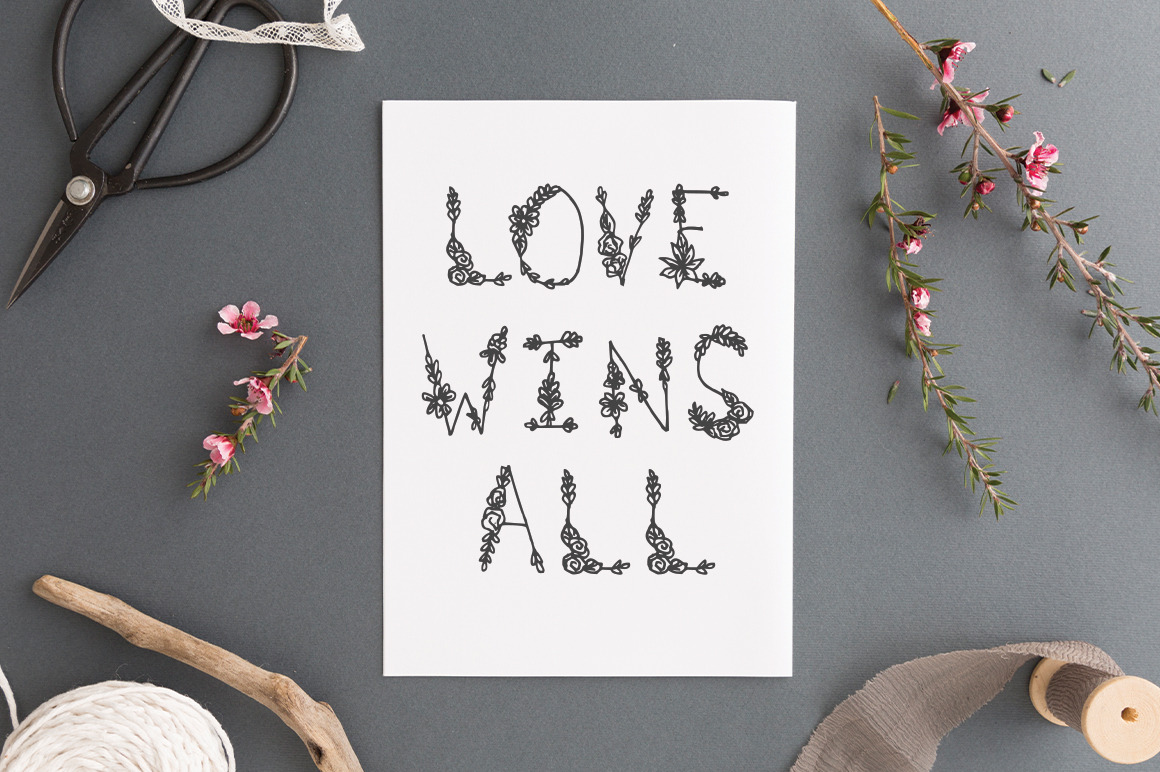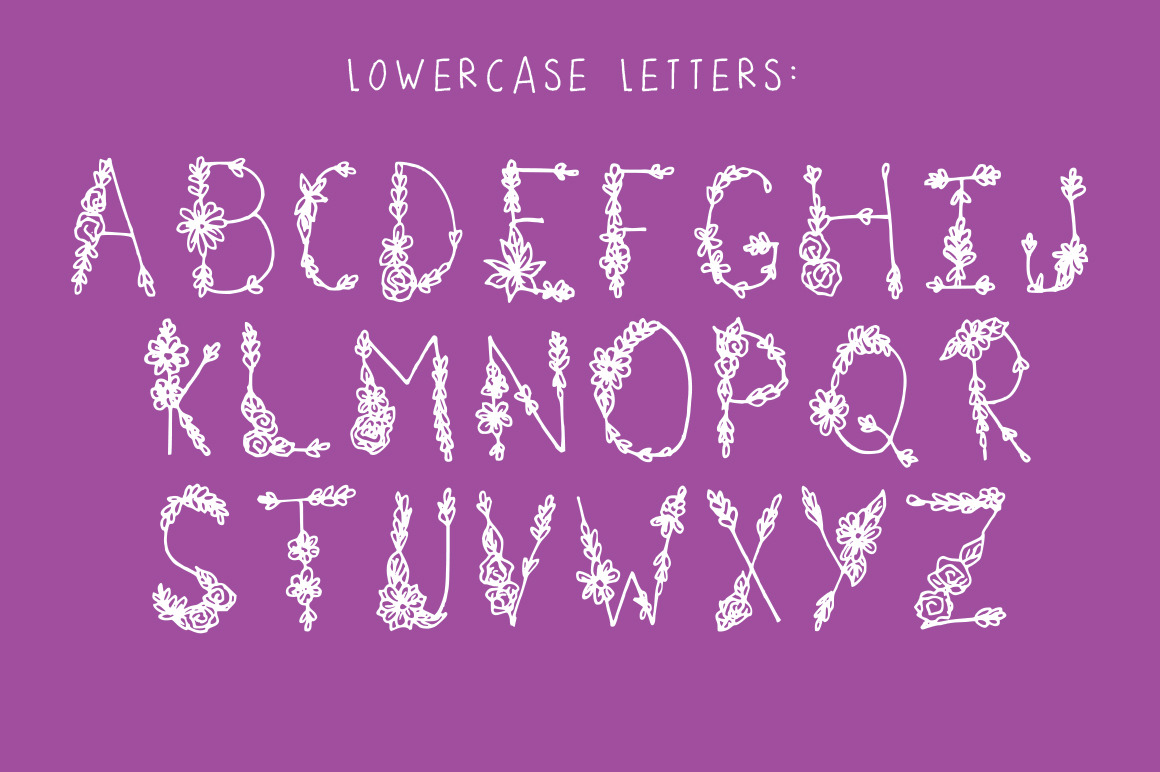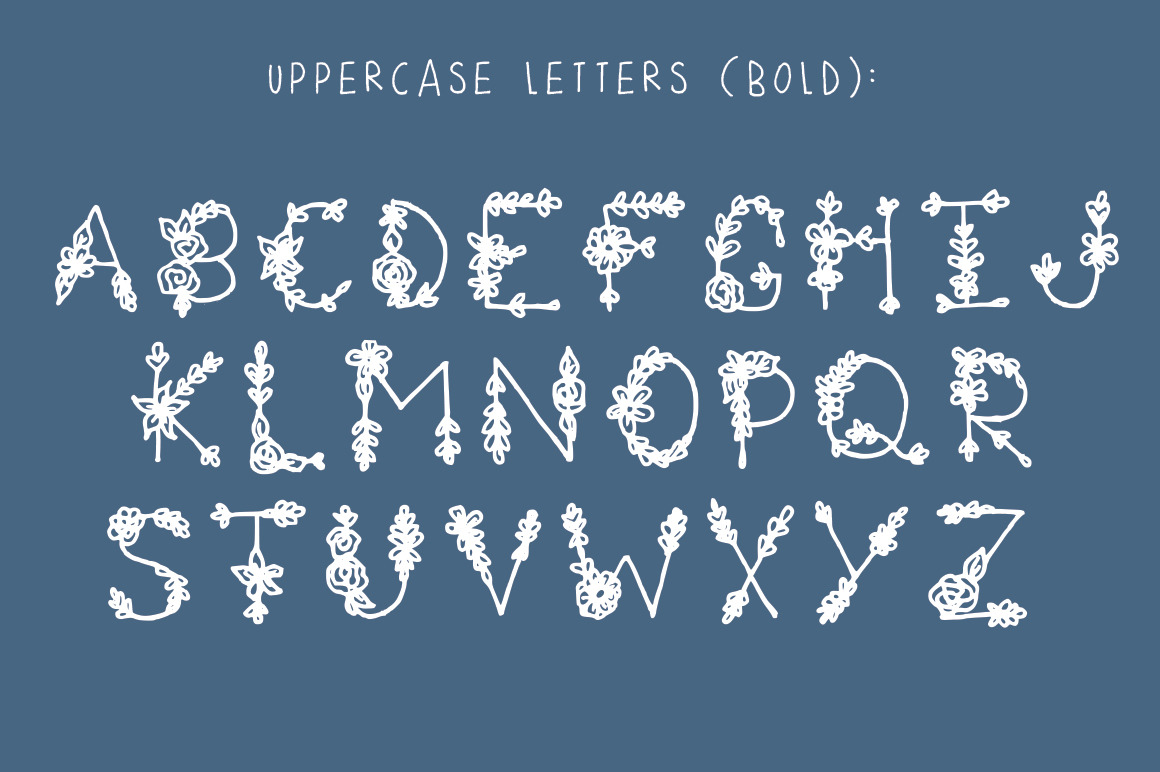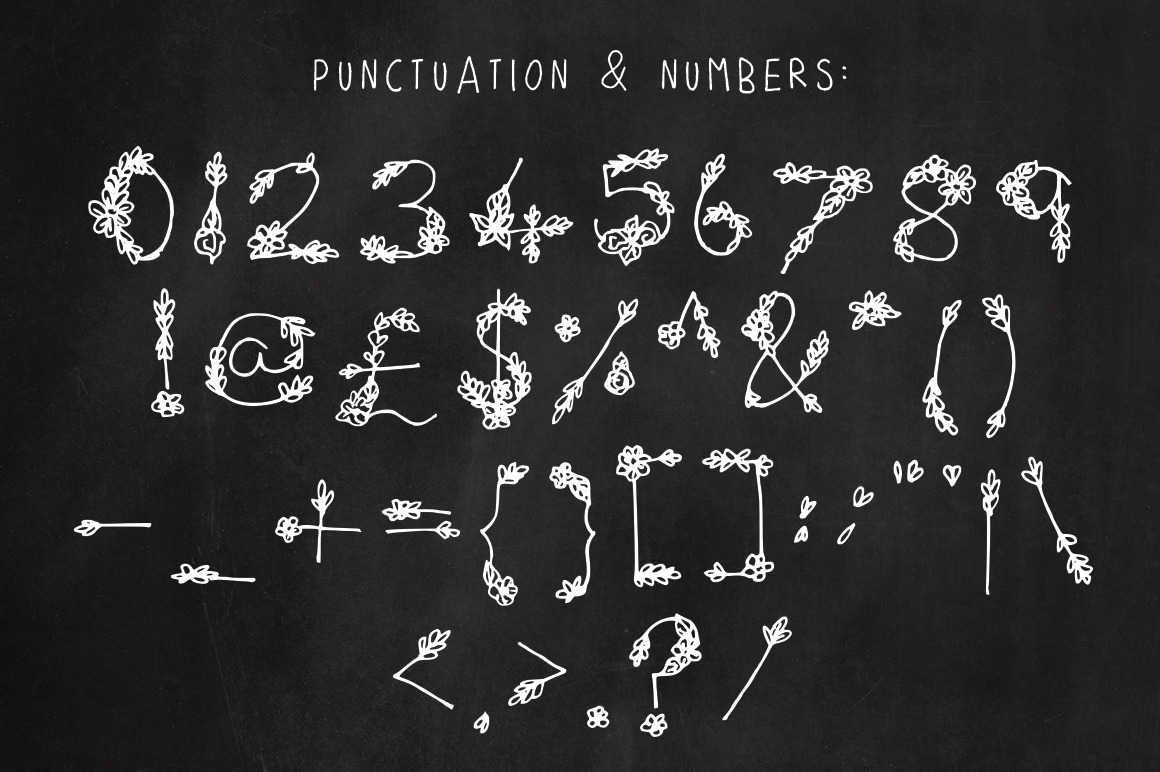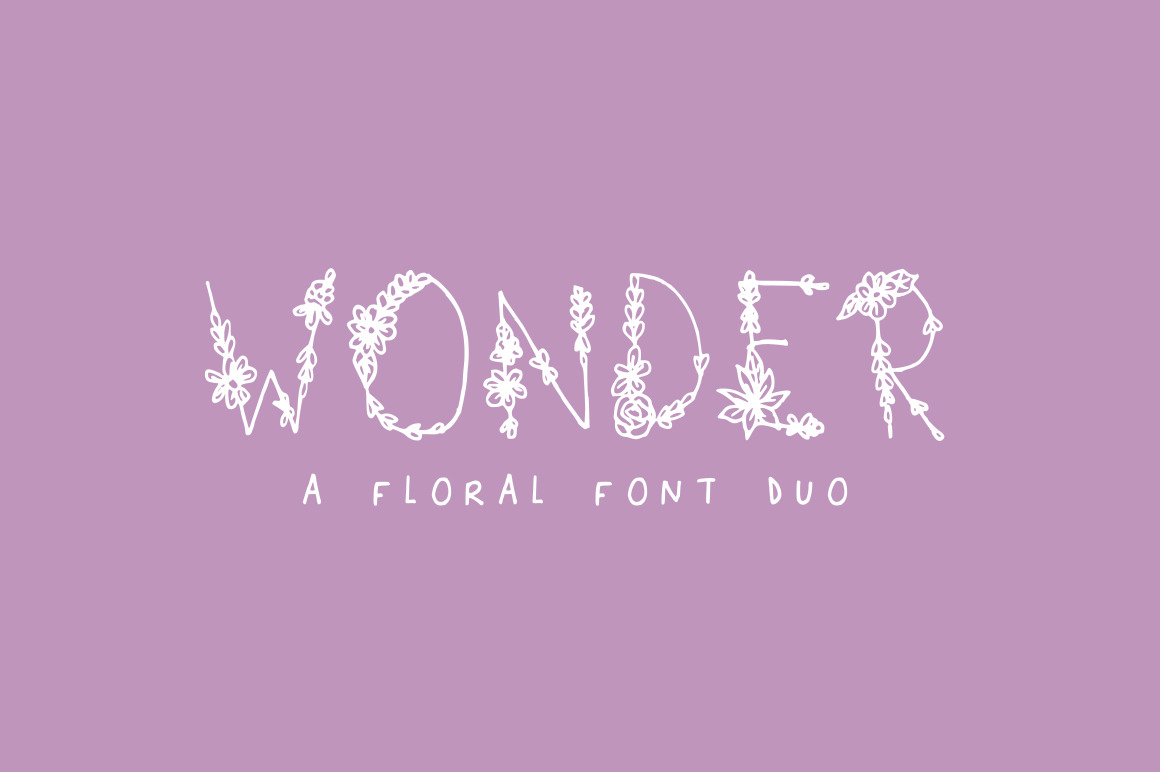
Wonder Floral Font
Wonder Floral Font is perfect for wedding invitations, greeting cards, branding for florists, packaging design, and decorative social media graphics. Its elegant, floral-inspired design adds a delicate and artistic touch to any project.
What makes Wonder Floral Font exciting is its intricate, nature-inspired letterforms that bring a sense of elegance and sophistication. The font’s flowing details create a visually captivating experience that enhances any creative work.
The Wonder Floral Font family includes Regular, Bold, Italic, and Decorative styles, giving designers flexibility to craft layered, expressive, and beautiful typographic compositions.